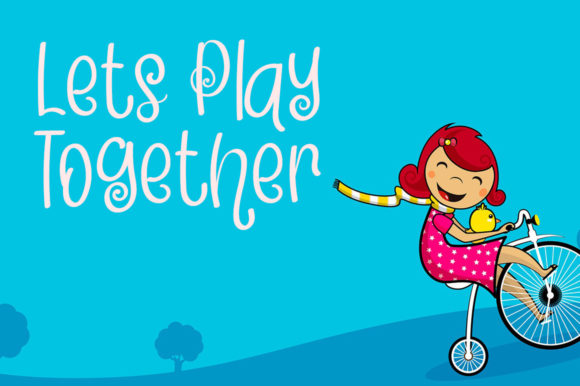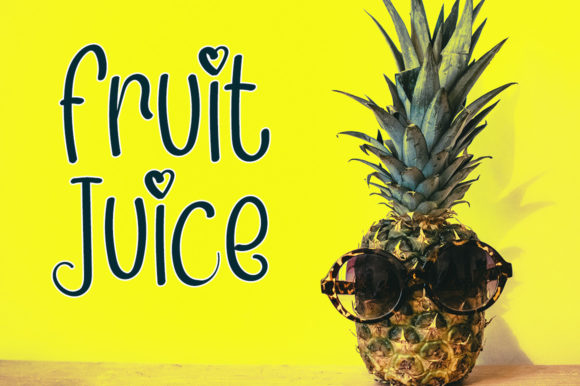
Kitty Kiss Font
db-ku.com - Script & Handwritten -- Kitty Kiss is a beautiful and sweet handwritten font. It is fresh, clean, and elegant. This font will look amazing in a great number of projects, both formal and informal. It will add an incredibly joyful touch to your designs. Fonts are designed to simplify your design. By using this font, your business will look more beautiful.